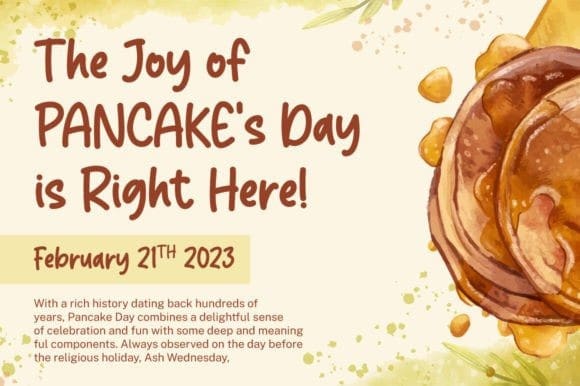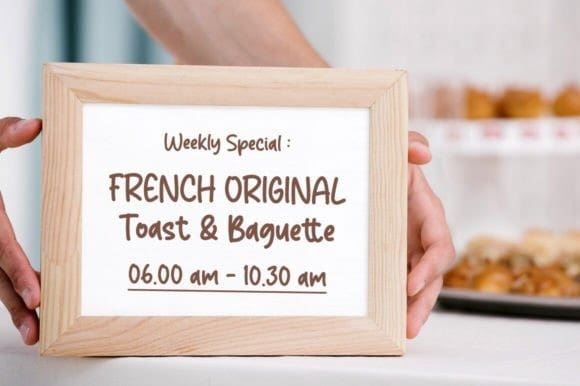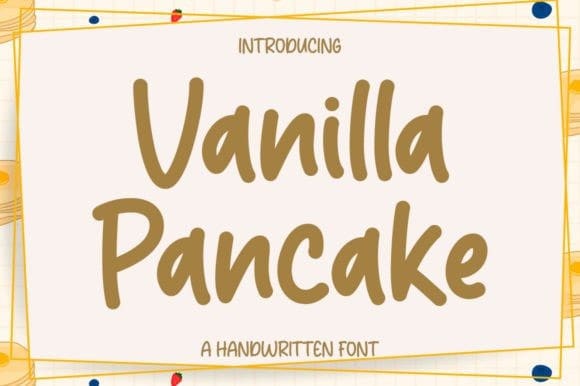
Vanilla Pancake Font
Vanilla Pancake Font is a delicate and simple-lettered handwritten font, perfect for all the chalkboard quotes and teaching materials you wish to create! Its authentic look will add a personal and realistic feel to your designs